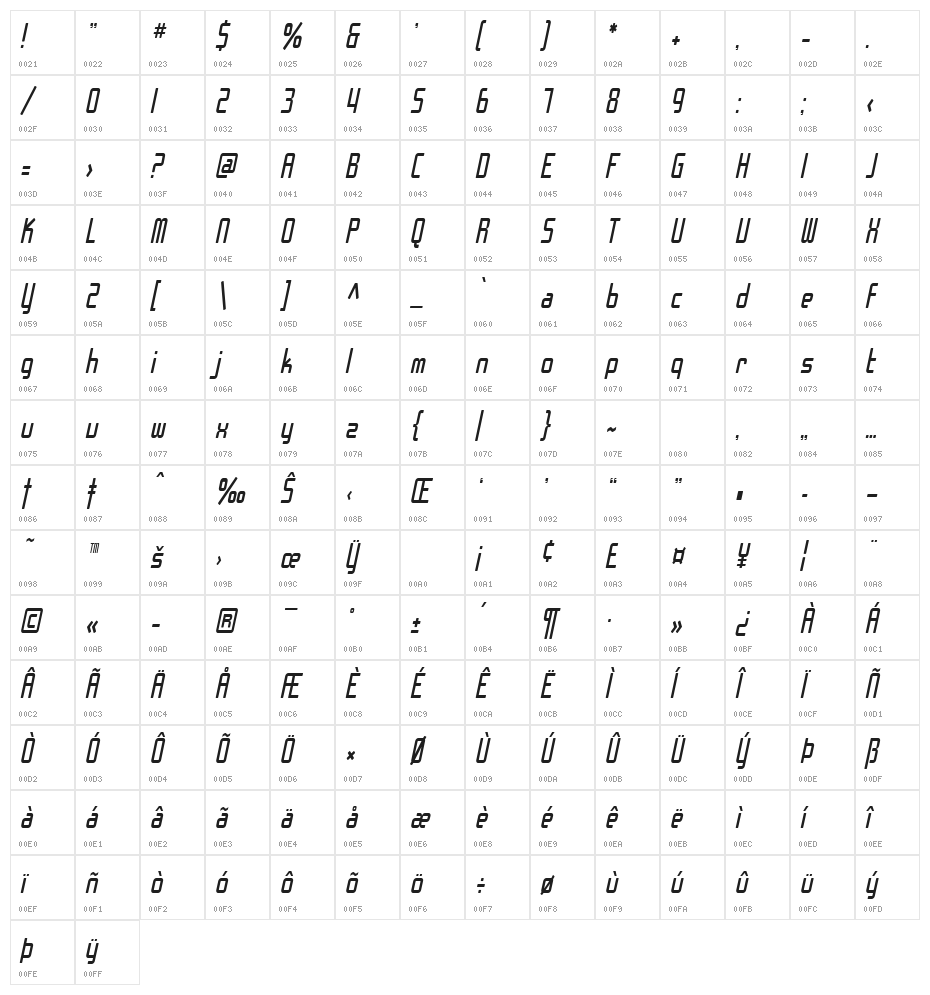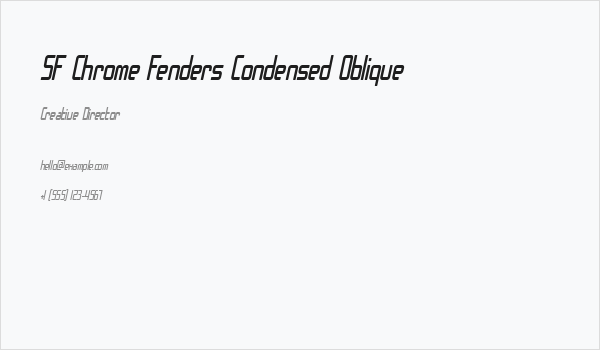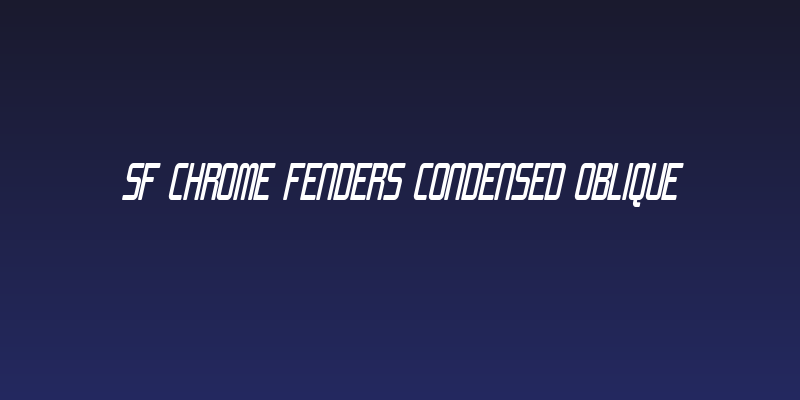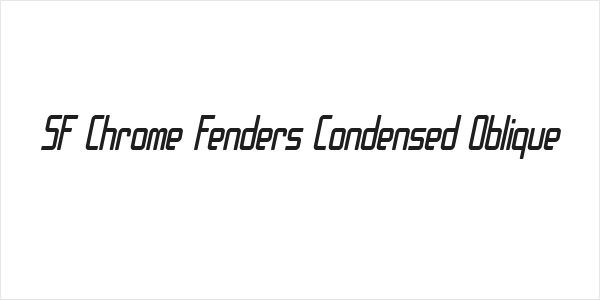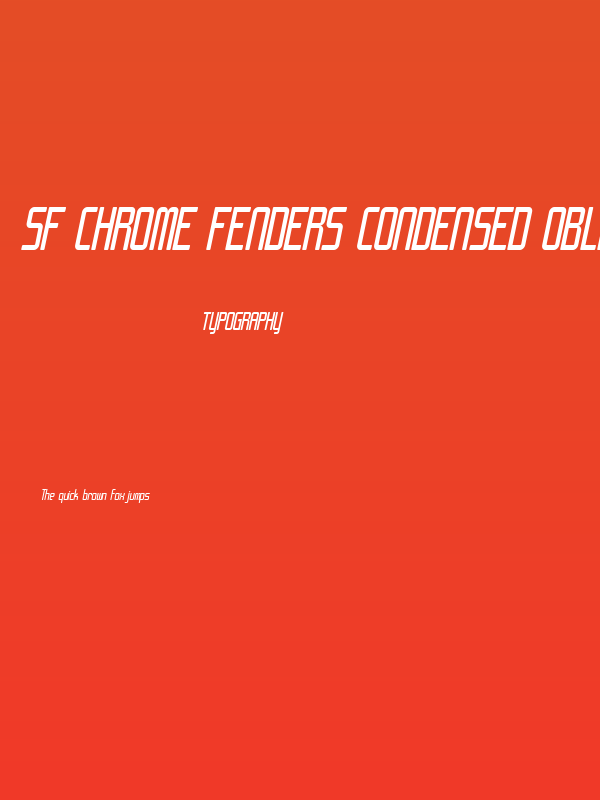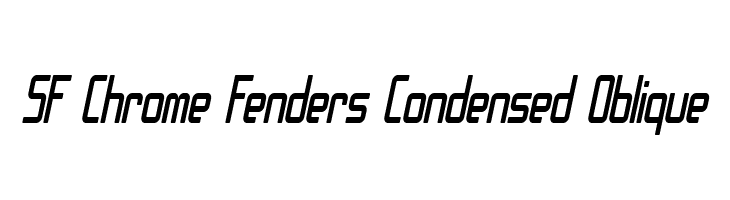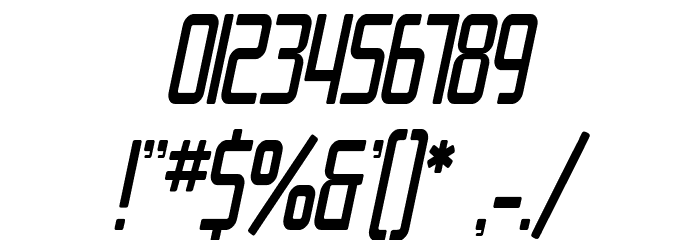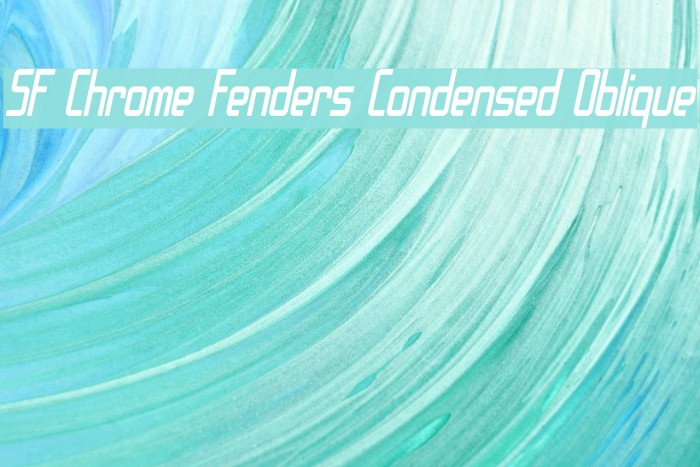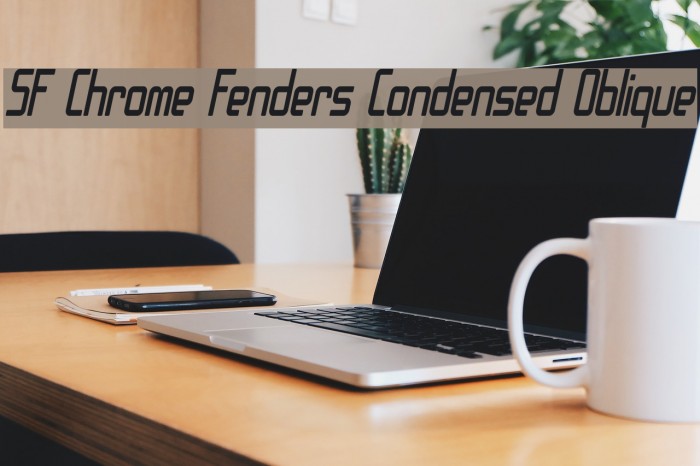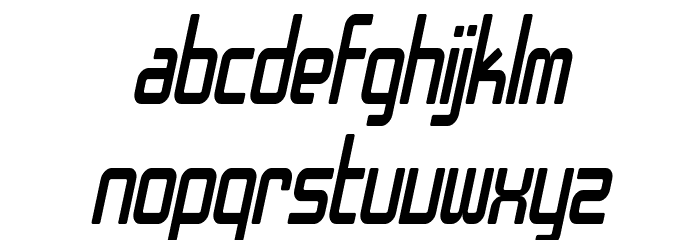
SF Chrome Fenders Condensed Oblique Font
SF Chrome Fenders Condensed Oblique Description
This font features a modern, sleek design with a condensed and oblique style. The characters are elongated and slightly slanted, giving a sense of motion and dynamism. The strokes are consistent in thickness, providing a uniform appearance across all characters. The uppercase and lowercase letters maintain a cohesive look, with rounded edges that soften the overall aesthetic. The numerals and special characters are designed to match the letters, ensuring a harmonious visual flow. This font is ideal for projects that require a contemporary and energetic feel.
| Use Case | Logos, Headlines, Branding |
| Proposed Projects | Ideal for automotive branding, tech company logos, sports team merchandise, and dynamic advertising campaigns. |